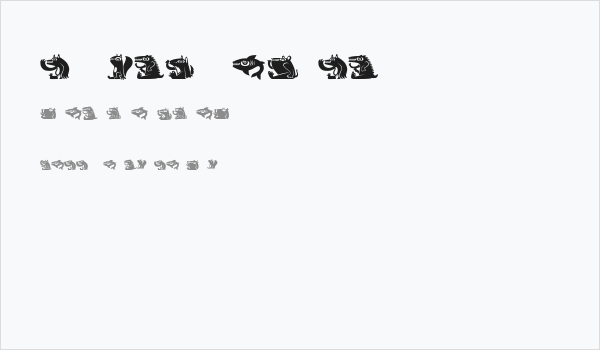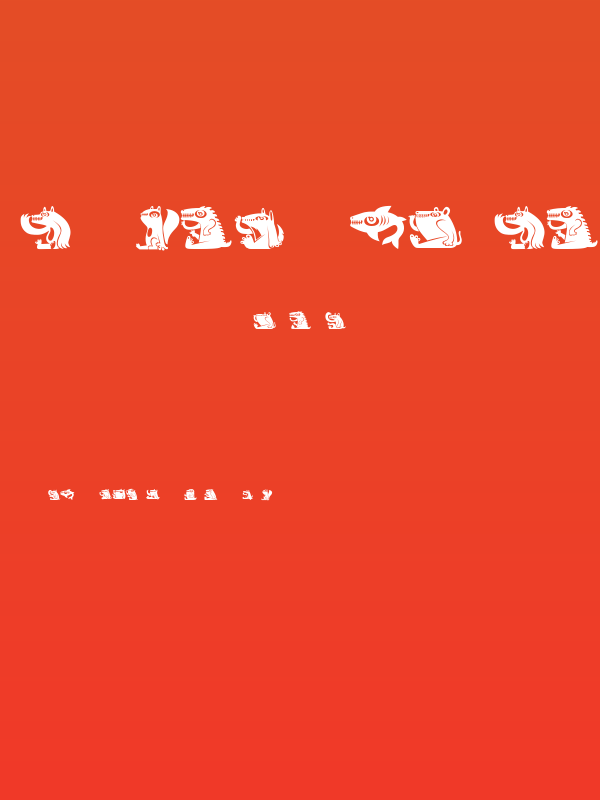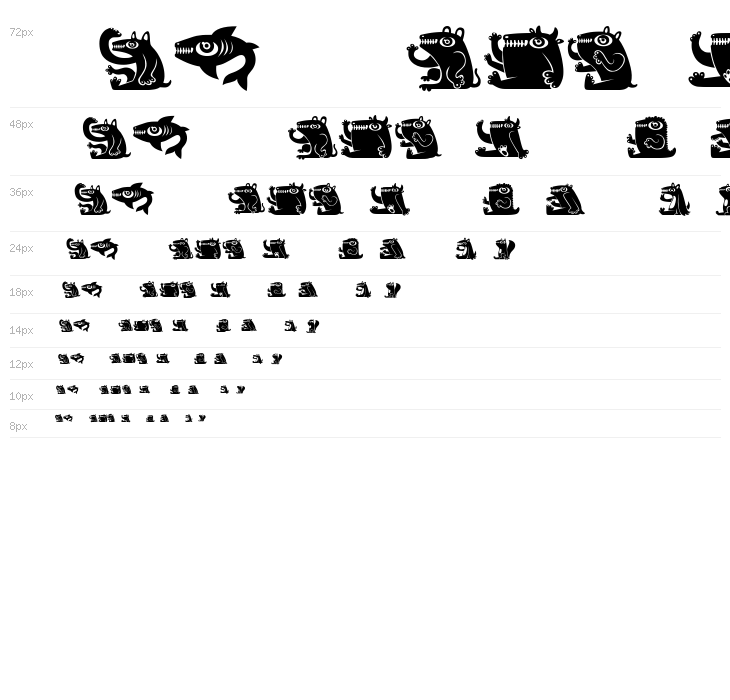
Loomad Regular Font
This font features a whimsical and playful design, with each character represented as a unique cartoon-like creature. The characters are highly stylized, with exaggerated features and a bold, black silhouette. Each letter and symbol is distinct, yet they all share a cohesive artistic style that suggests a sense of fun and creativity. The font is decorative and not intended for traditional text use, but rather for artistic and creative projects where a unique and eye-catching design is desired.
| Use Case | Logos, Posters, Creative projects |
| Proposed Projects | Ideal for children's books, playful branding, creative posters, and any project requiring a whimsical touch. |